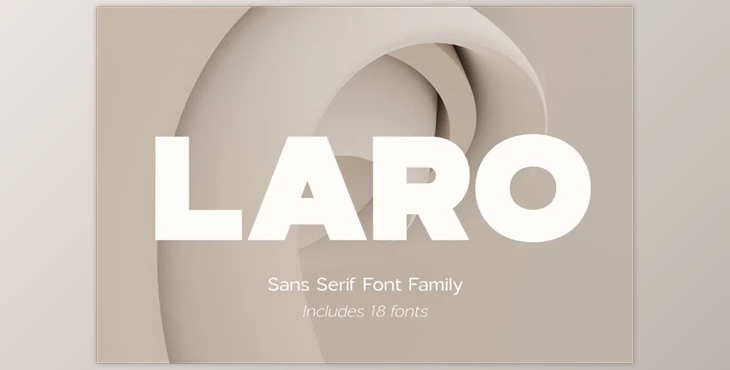
Laro it's a modern sans-serif typeface that comes with nine weights ranging from thin to black, and 9 weights that are with Italic style.
The multi-purpose font offers an extensive range of options for the design and production of your projects. Laro can be used for various tasks, and will always appear elegant and contemporary. You can make labels, logos that you can use for packaging, advertising, and branding as well as book covers and magazines cosmetics, banners and posters, headings, descriptions, and more. The font is simple to use and comes with OpenType features.
- Full alphabet, with Uppercase and Lowercase A-Z
- The numbers, fractions, and numbers
- Punctuation and symbols
- Alternate spellings for Uppercase "C, M, N, U"
- Alternatives to Lowercase "a, f, g, y"
- Multilingual support